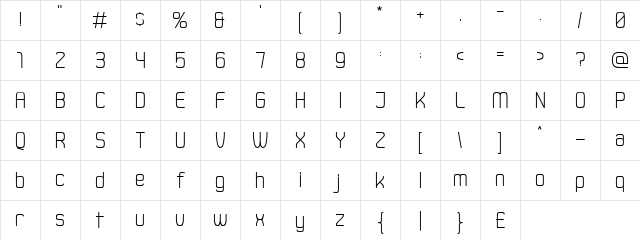
Duster AB Thin
Style: Thin
Foundry: Alex Banks
Designer: Alex Banks
Design Context for Duster AB
Duster AB is a composed and adaptable typeface that performs quietly and consistently across a wide range of design contexts. Its slender proportions lend an understated elegance to any composition.